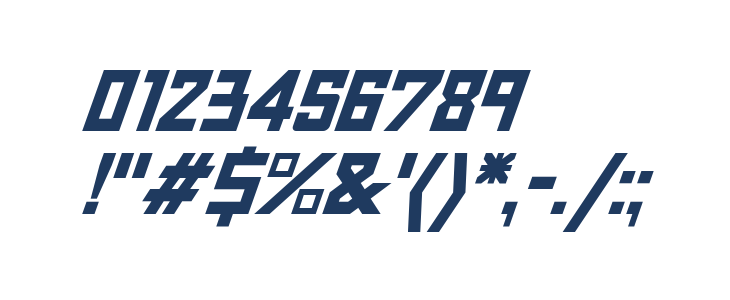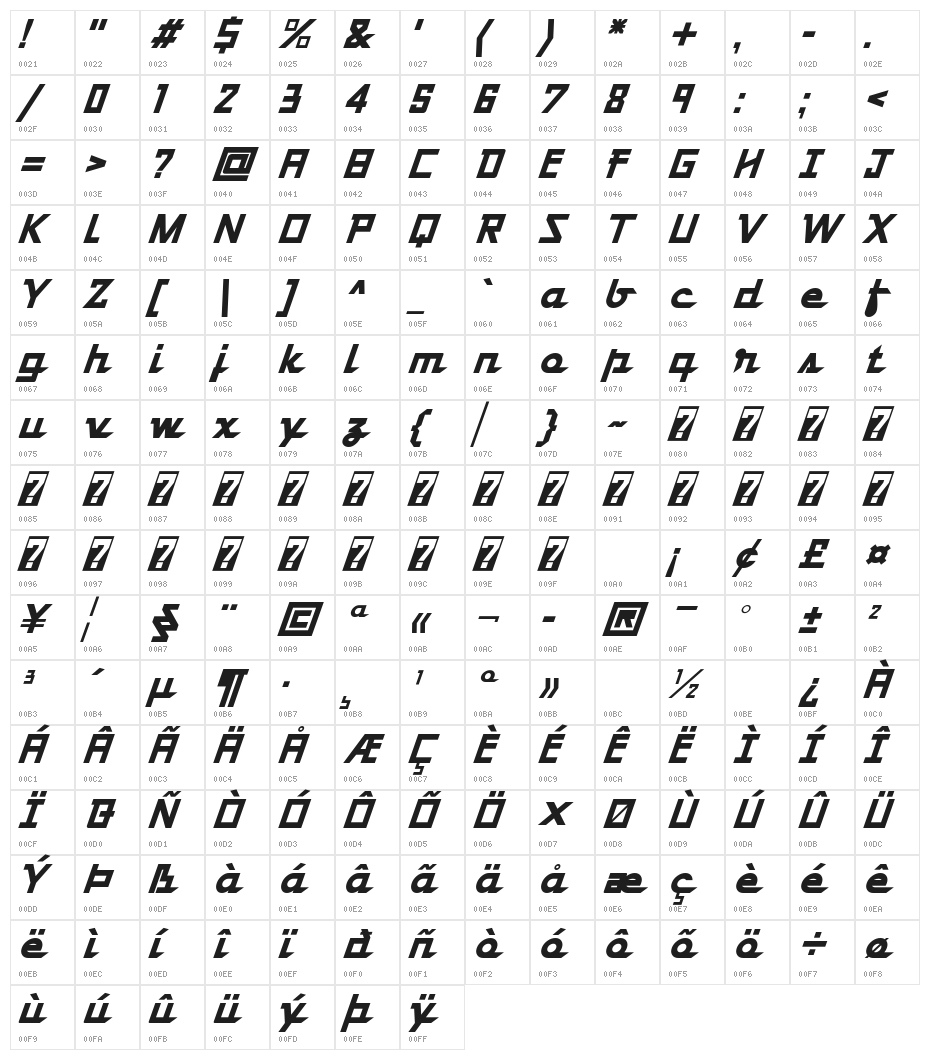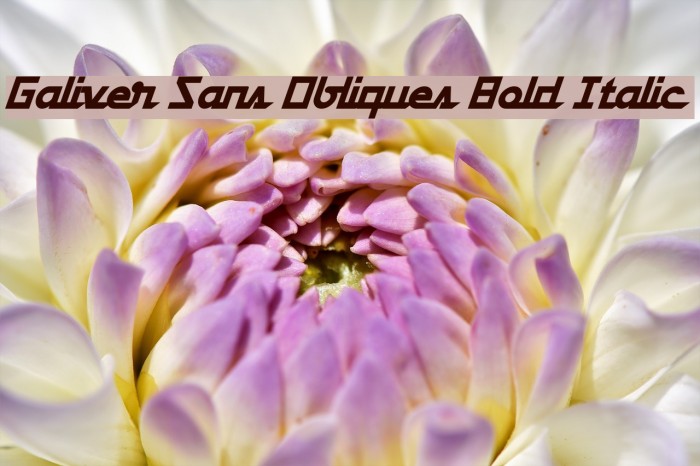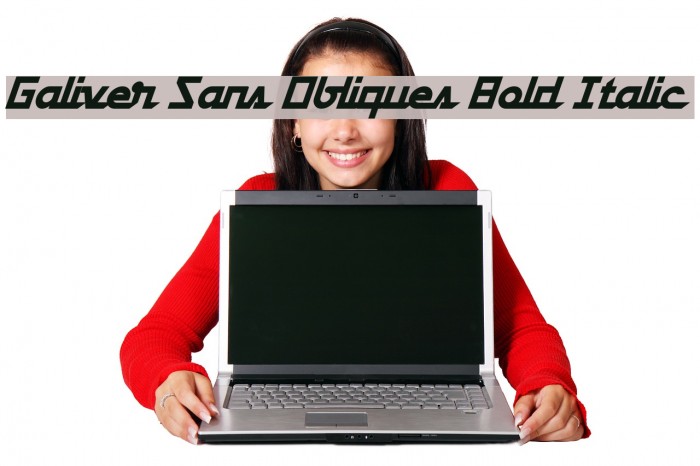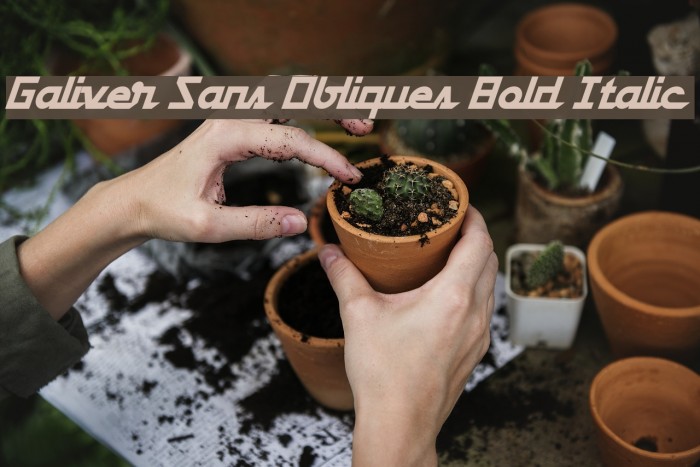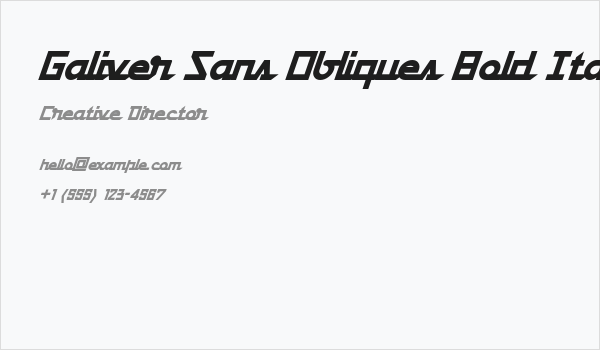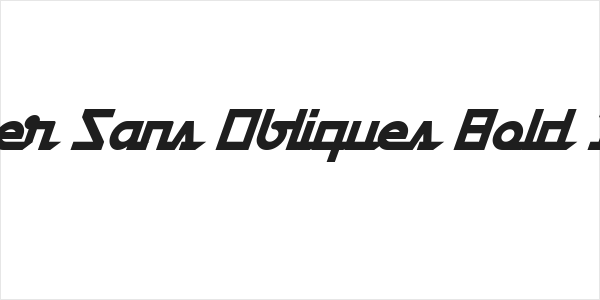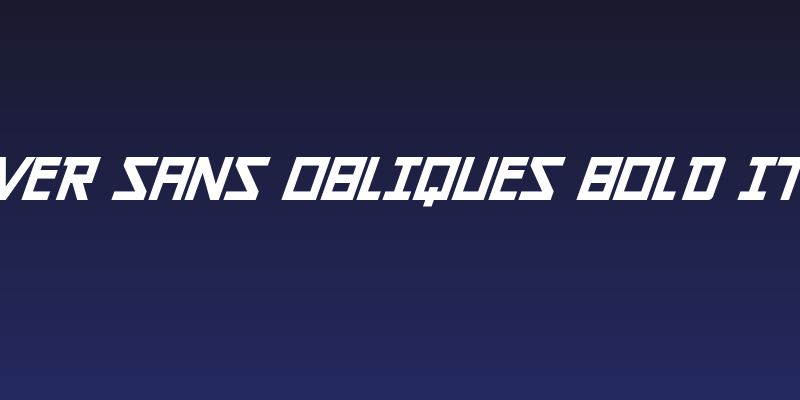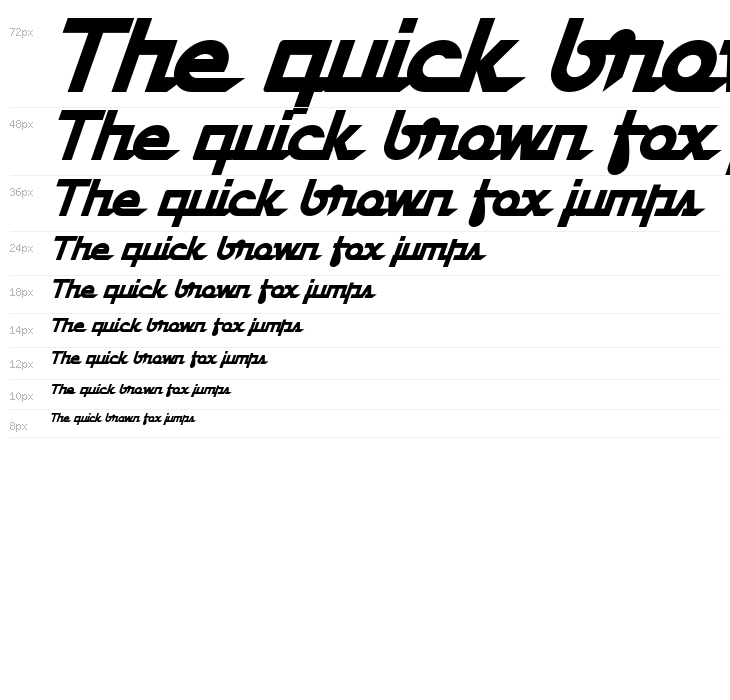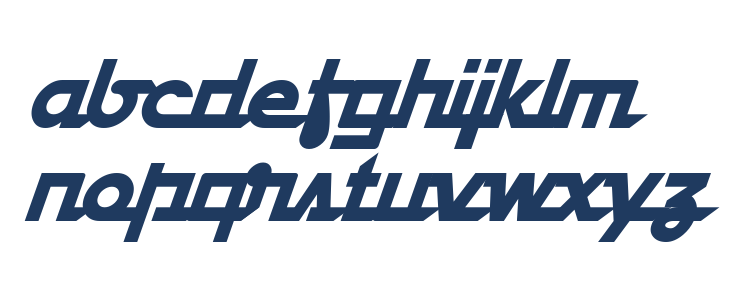
Galiver Sans Obliques Bold Italic Font
Galiver Sans Obliques Bold Italic Description
This font features a bold and italicized style with a distinct oblique slant, giving it a dynamic and forward-moving appearance. The characters are sans-serif, with clean lines and sharp angles that convey a modern and assertive look. The uppercase letters are uniform in height, while the lowercase letters maintain a consistent baseline, enhancing readability. The numerals are robust and align well with the overall design, making them suitable for impactful displays. Special characters are crafted with the same boldness, ensuring they stand out effectively. The font's overall style is both contemporary and versatile, suitable for various design needs.
Use CaseHeadlines, Logos, Advertising
Proposed ProjectsIdeal for branding, advertising, headlines, and digital media where a strong, modern presence is desired.